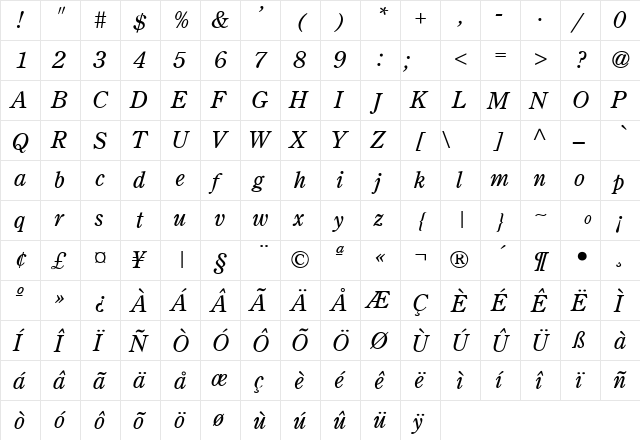
Schuyler Italic Regular
Design Context for Schuyler Italic Typeface
Schuyler Italic offers clean, dependable letterforms without strong stylistic allegiance, making it a practical choice for designers who need flexibility. The dynamic lean of this cut emphasises speed and emphasis in any layout.
Pro Tip: Use Schuyler Italic for emphasis, pull quotes, and subheadings where its slanted energy can add rhythm to the layout.